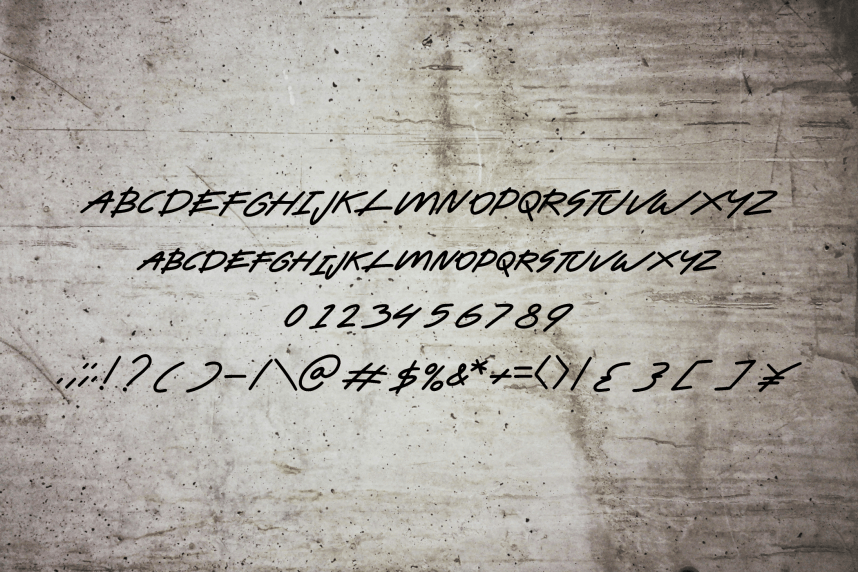
Graffiti LineWall Font – bold, simple wall-graffiti style font that captures the raw energy of street culture. Perfect for streetwear labels, skateboard brands, and any project that wants to channel a wild, youthful, urban edge.